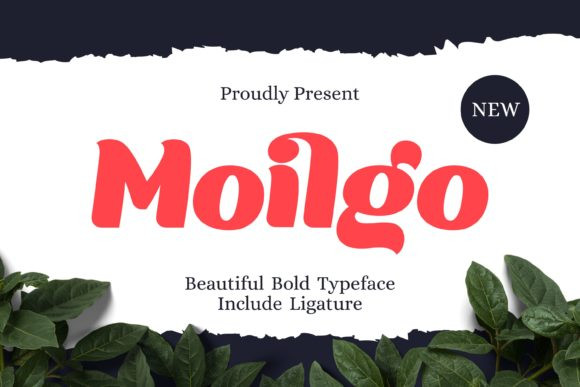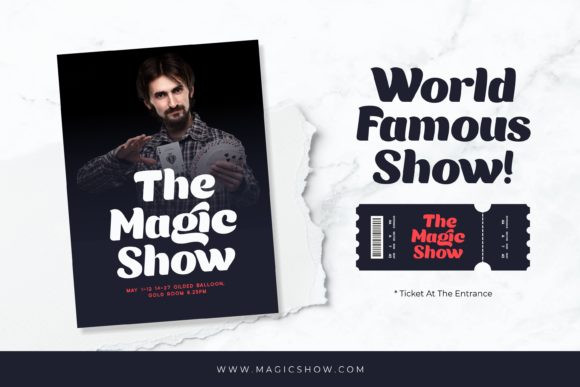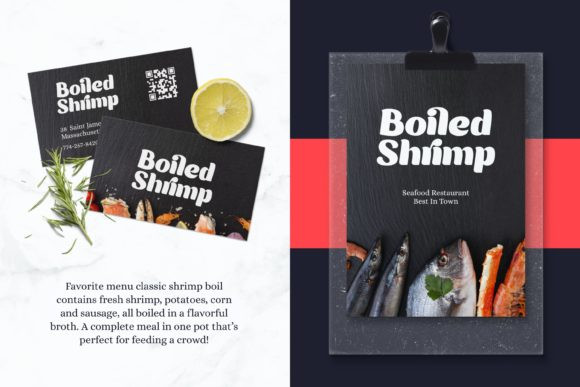
Moilgo Font
Moilgo is a new display font ready to be used in your next project.
This font is perfect for creating logos, headlines, magazine covers, posters and so much more.